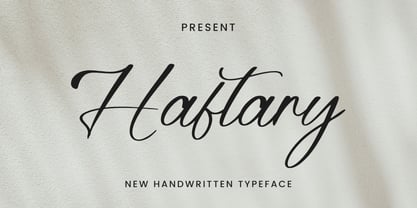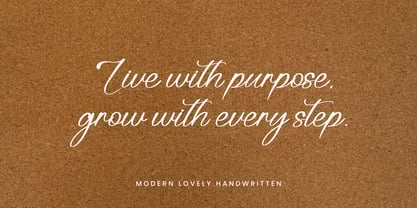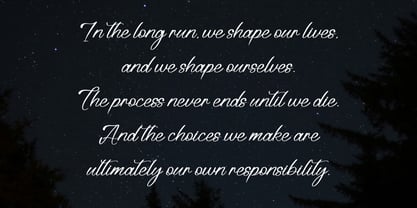
Haftary
by Ayska
The Haftary Font Family was designed by Dhoni Trihatmoko and published by Ayska. Haftary contains 1 styles. More about this family
Haftary is a gorgeously crafted handwritten font that effortlessly radiates charm and authenticity. It's a standout choice for injecting a grand touch of handwritten elegance into invitations, creating warm, heartfelt expressions on greeting cards, or breathing life into brand identity designs. Using Haftary means adorning your designs with casual sophistication. This natural and unpretentious handwriting script font unquestionably sets itself apart with its distinct style, ready to bring a personal and unique flair to your projects.
Designers: Dhoni Trihatmoko
Foundry: Ayska